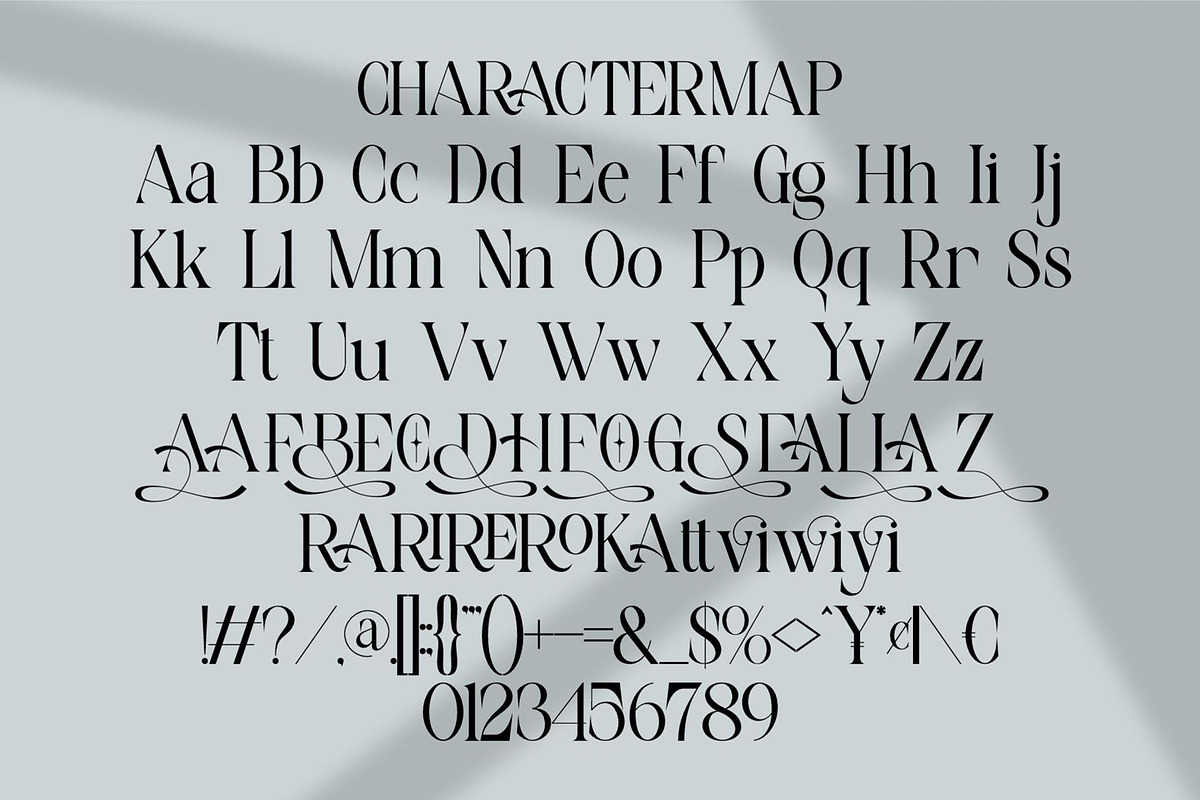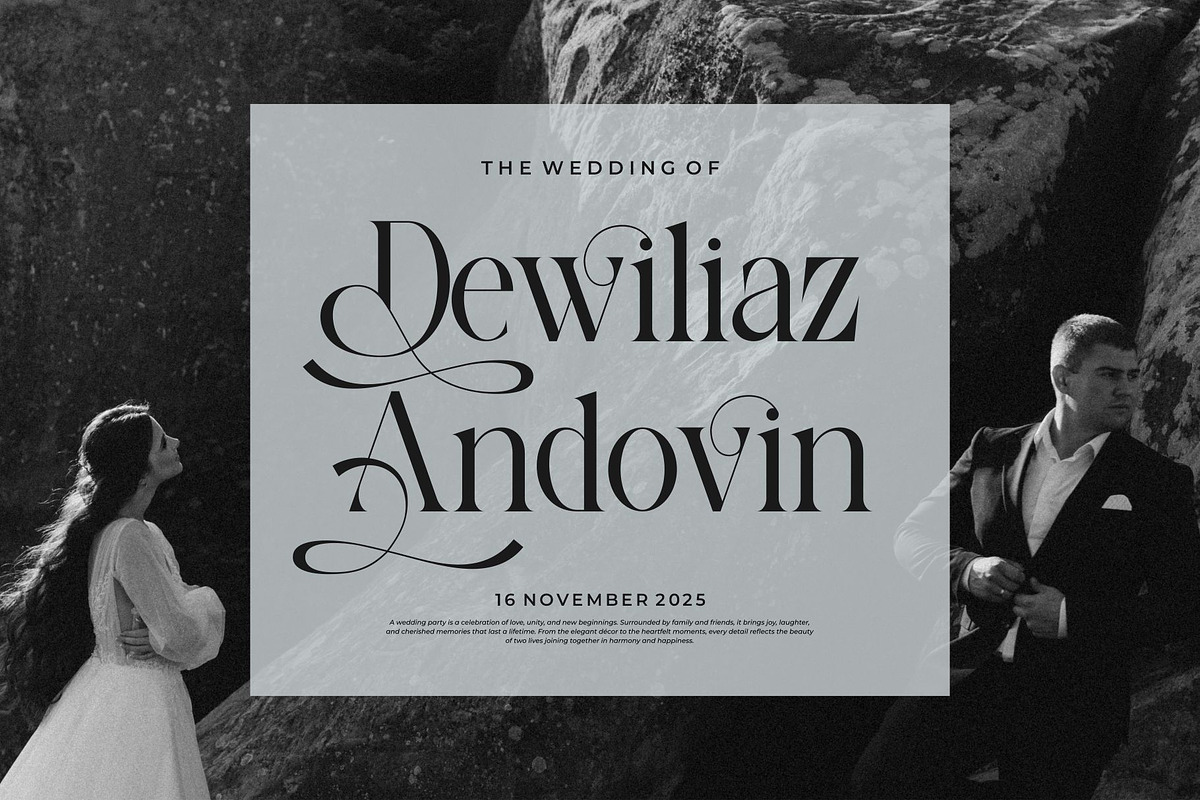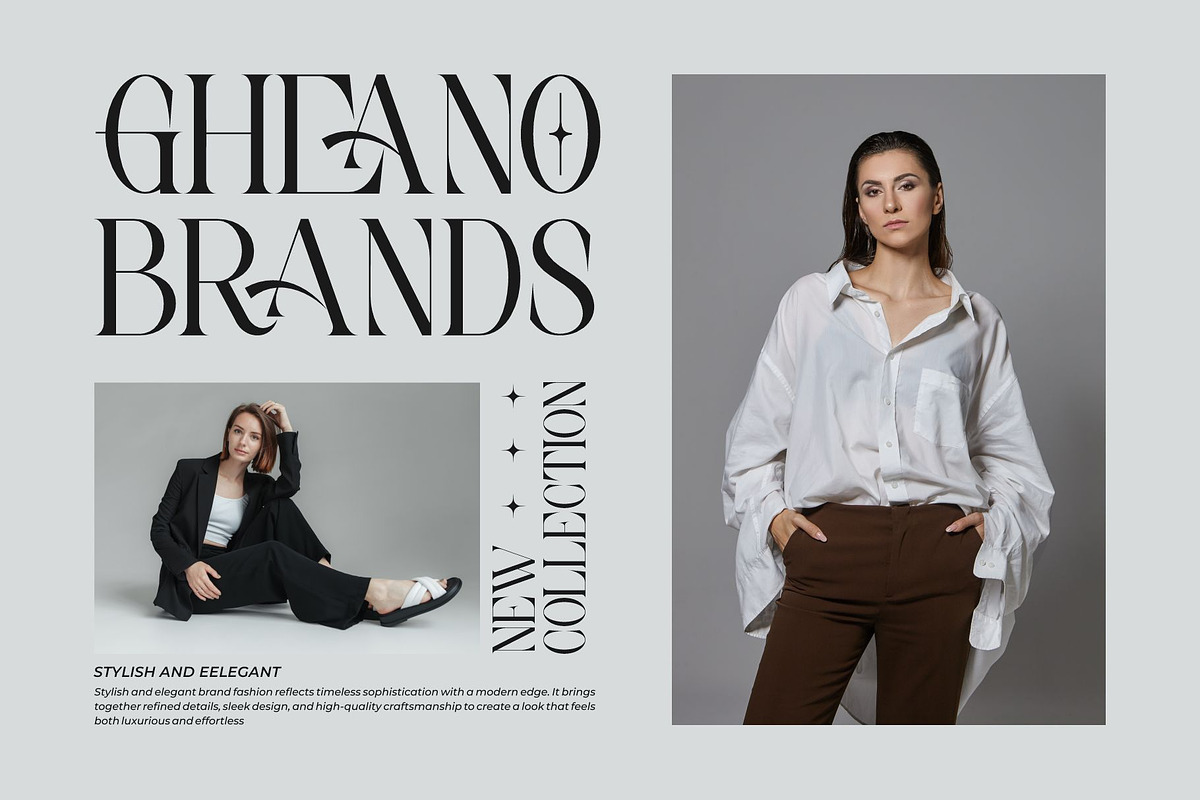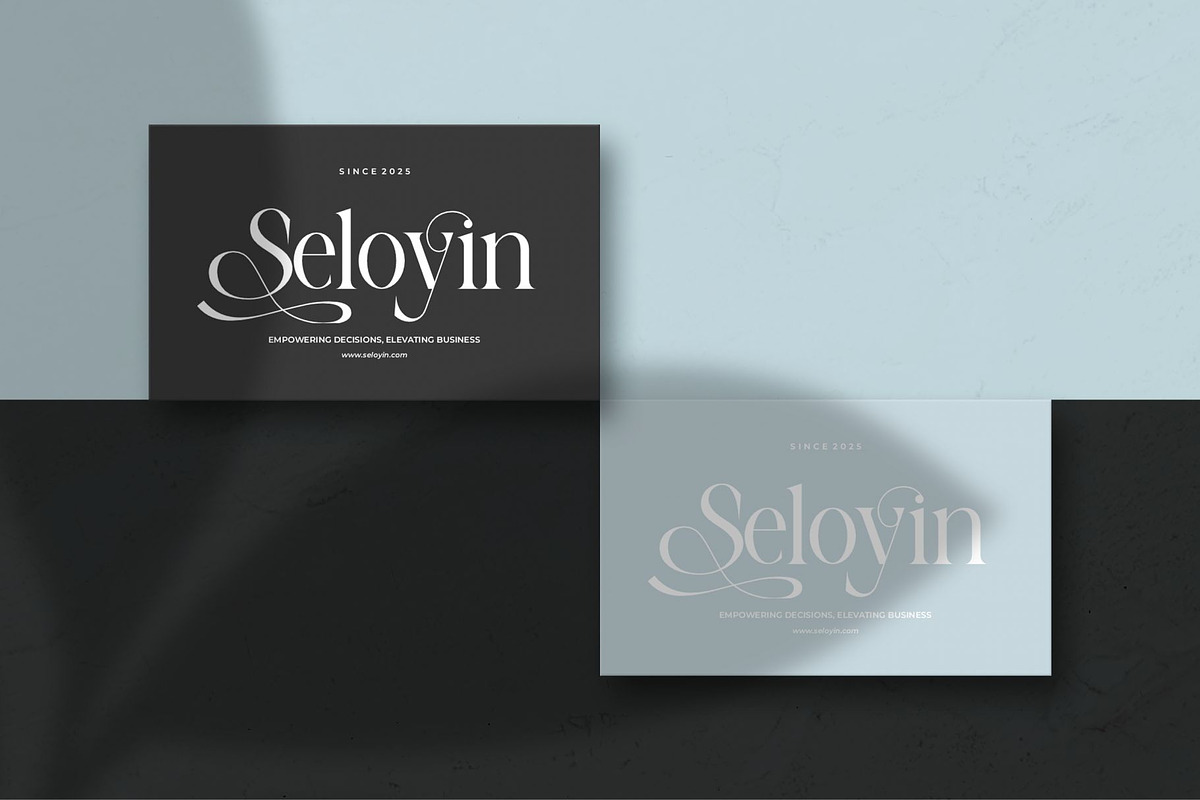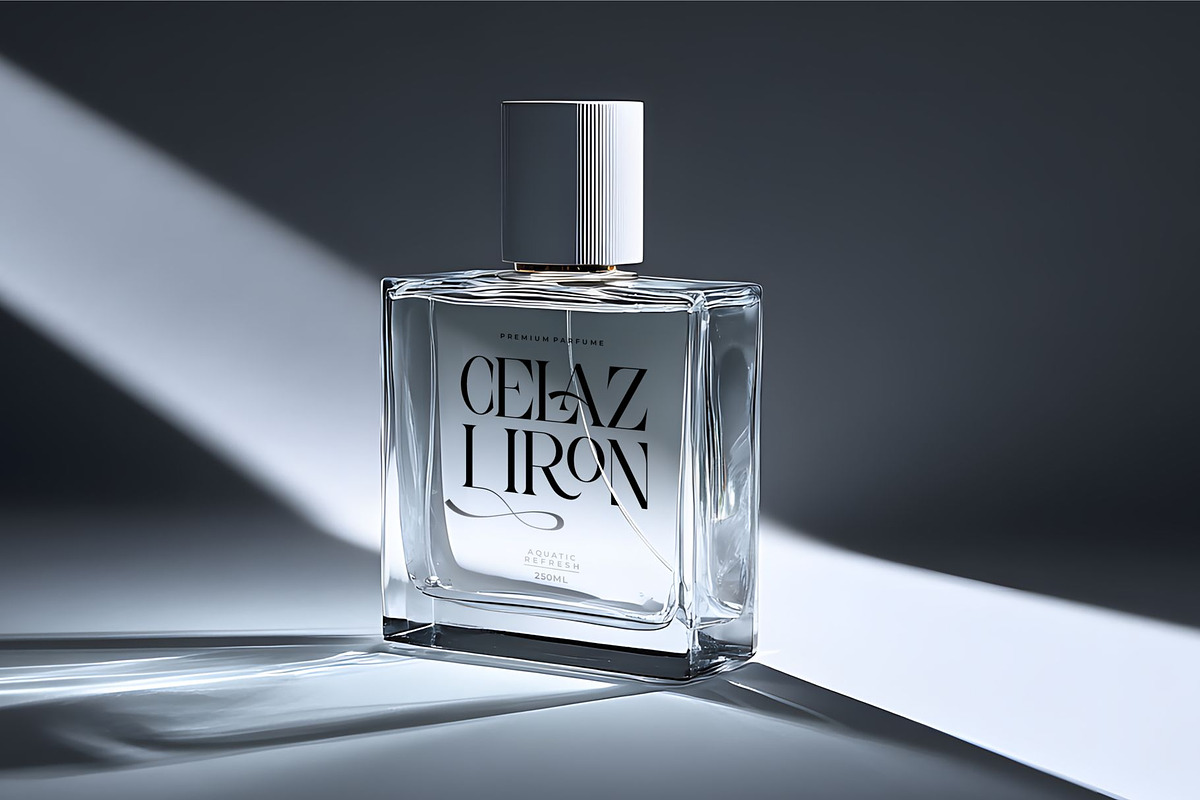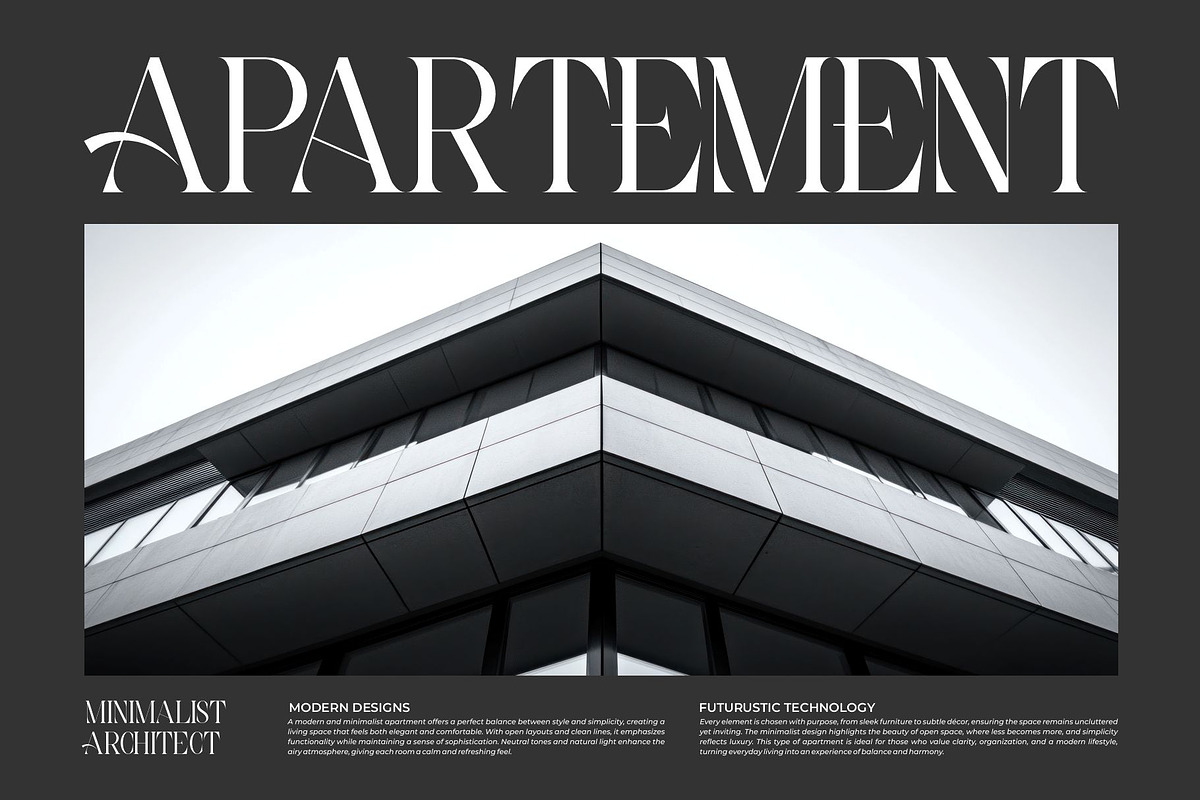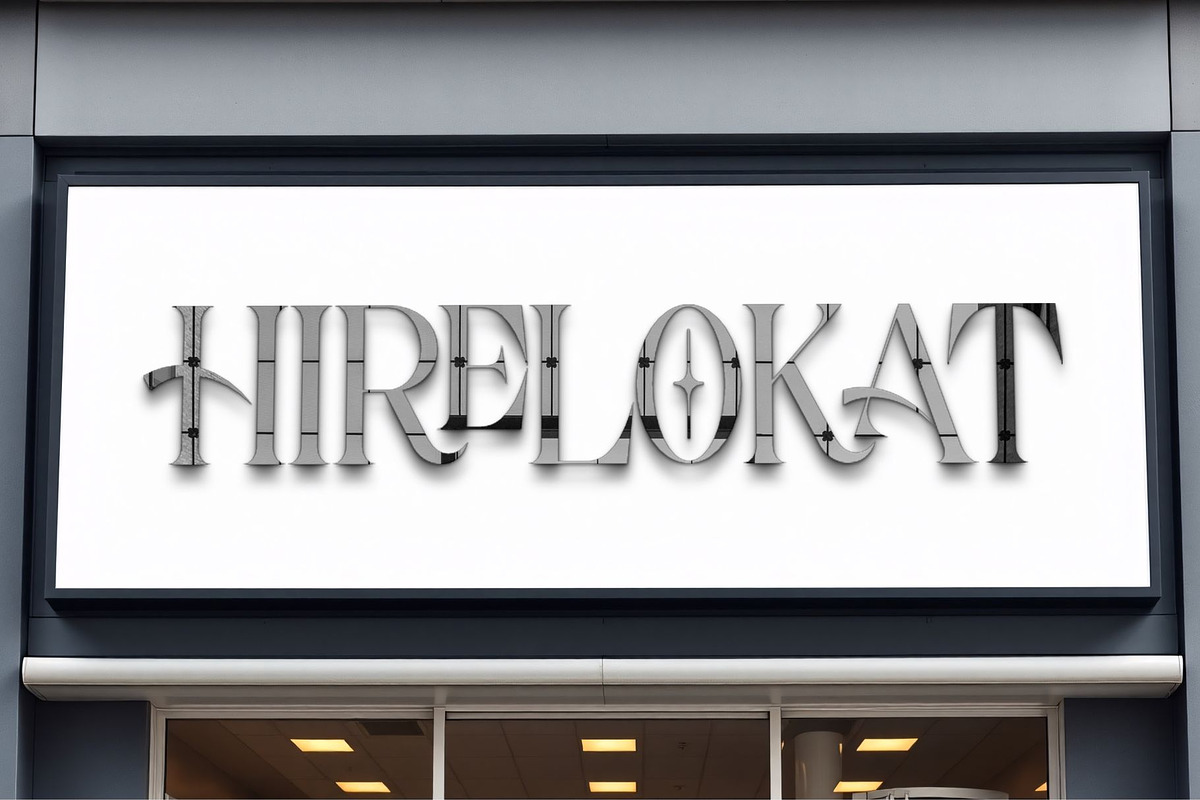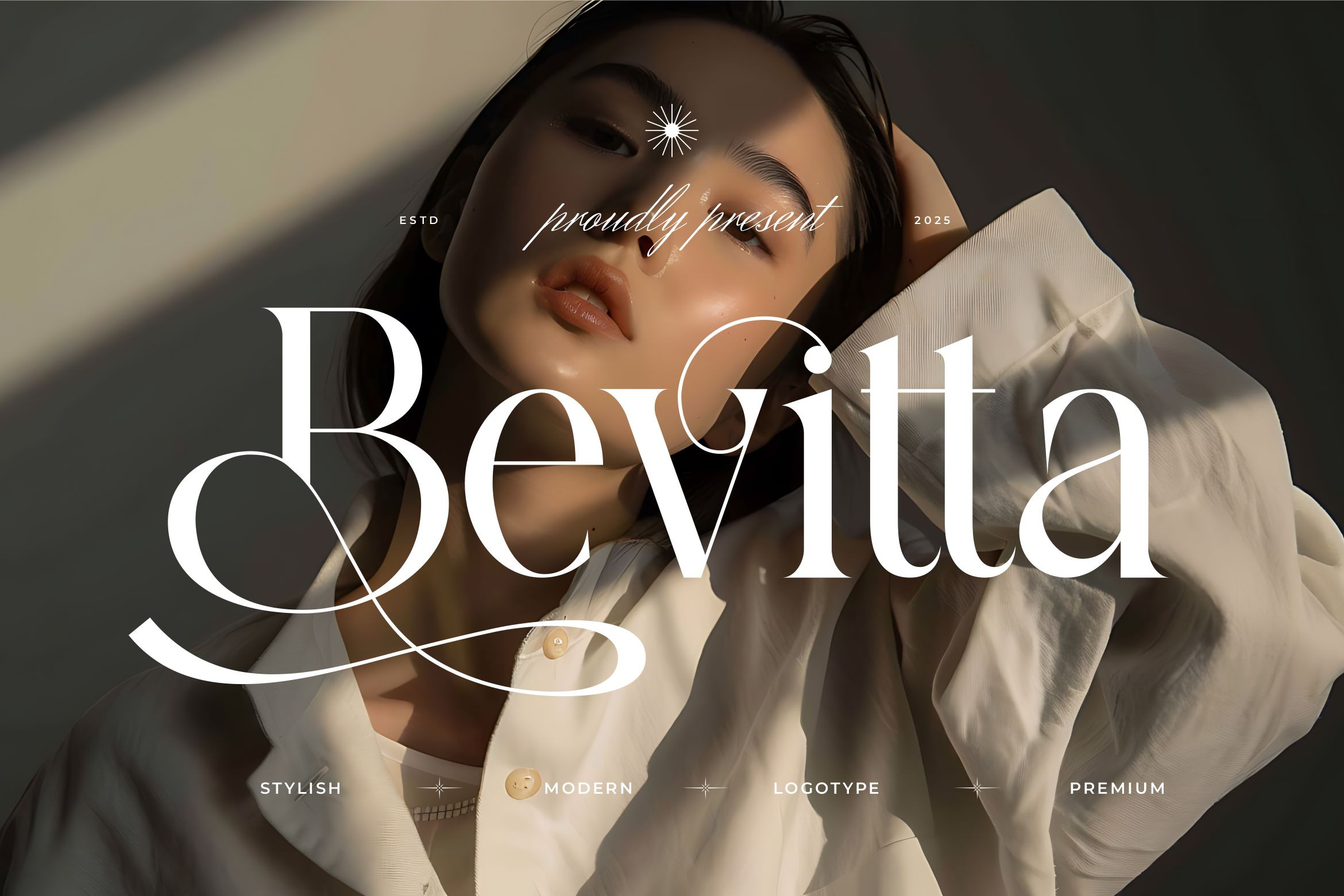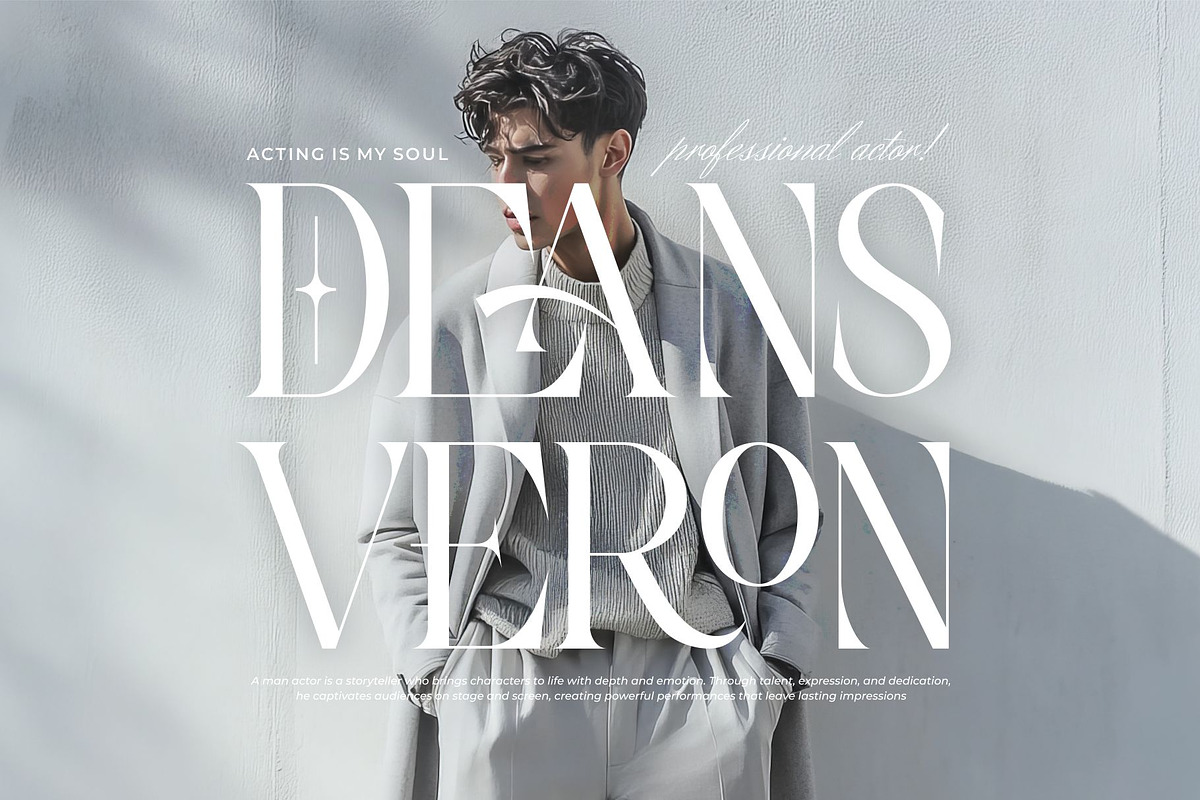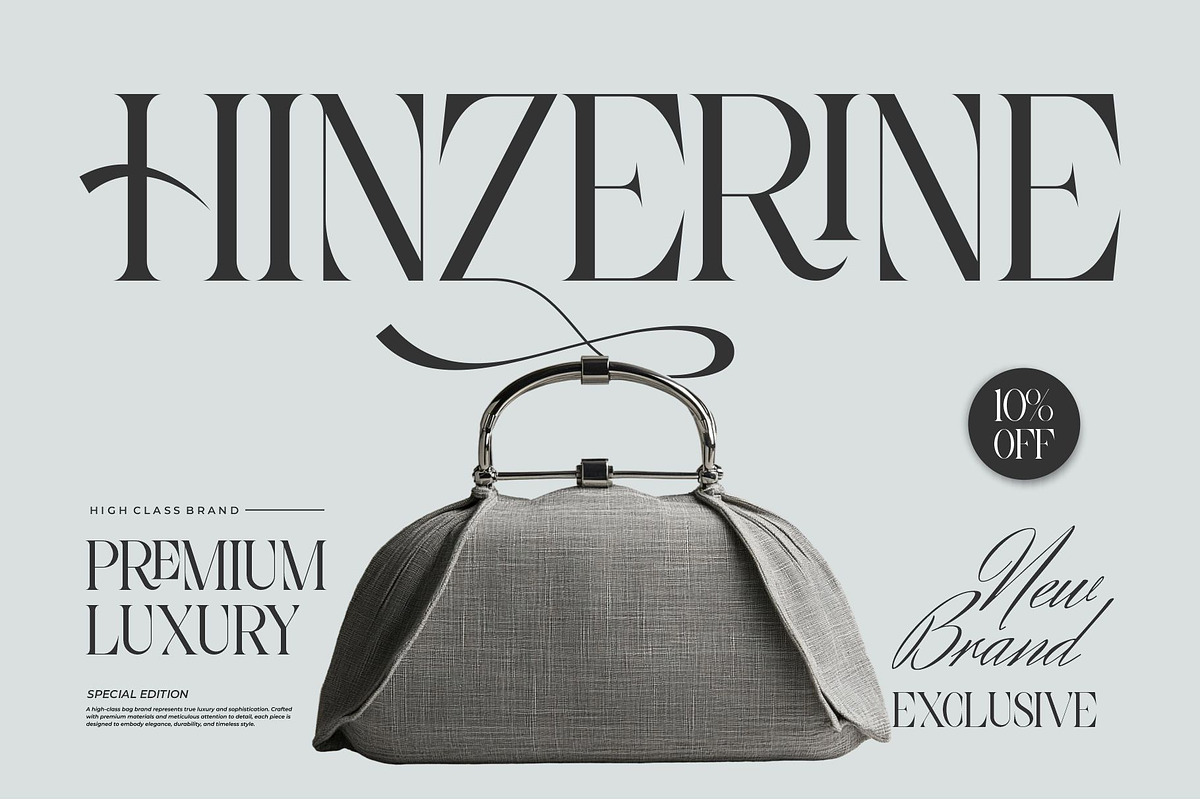
Bevitta || Modern Classy Serif Font
Bevitta Serif is a modern and classy font type for all branding and logo designs. This modern and classy Serif font has a beautiful character. This font is suitable for invitation card designs, cool logos, movie titles, movie names, business cards, book titles, brand names, and various other designs. Bevitta Serif is a smooth serif font that exudes sophistication and the moment. Its stylish ligatures and alternates make this font a perfect partner for any project.
- Ligature & Alternate